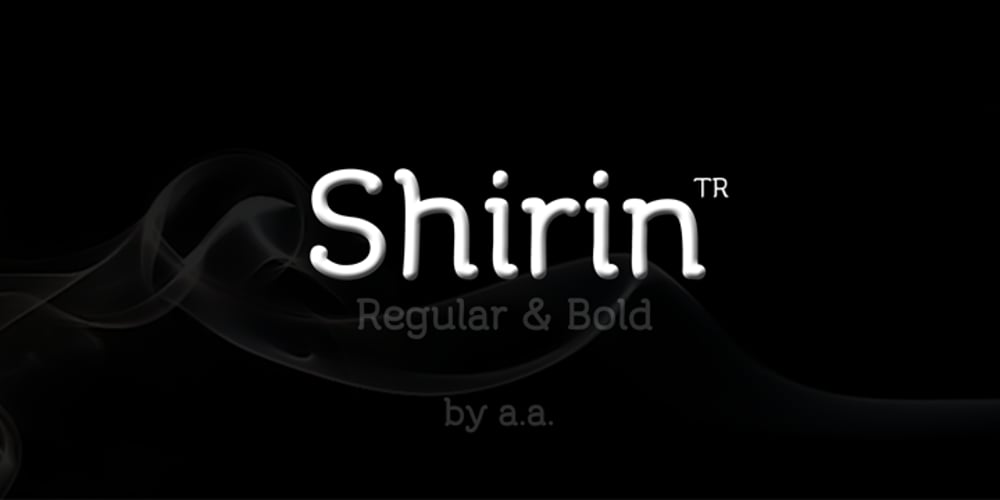
Shirin Font Family was designed by Ahmet Altun and published by Ahmet Altun. Shirin contains 1 styles and family package options. With this nice, rounded-corner handwriting font that is like comic, slab style; sweet and radiant logos, texts and every kind of graphics, editions and printings like magazines, brochures can be created. Text printouts look pretty smart.